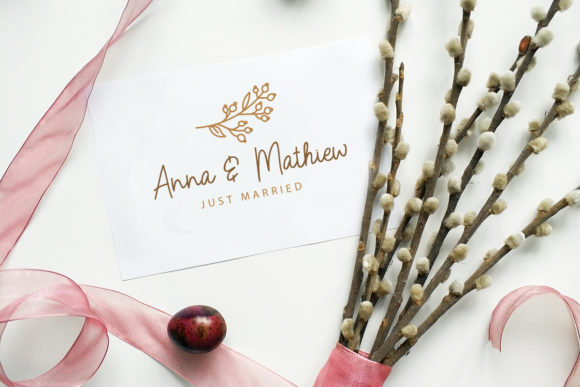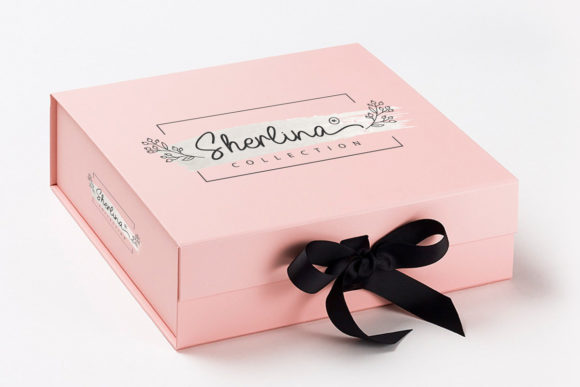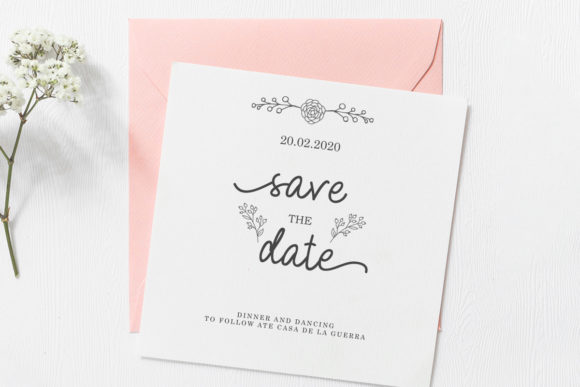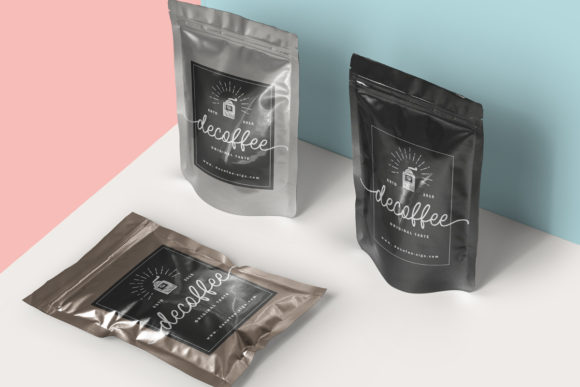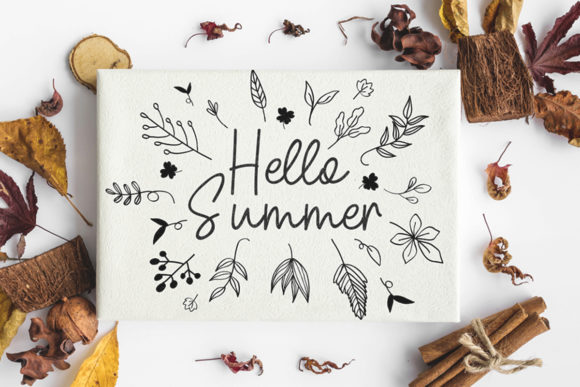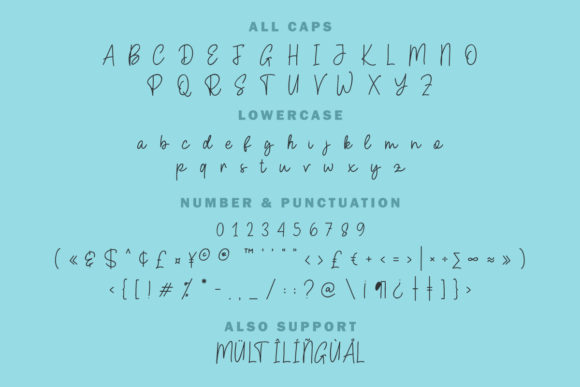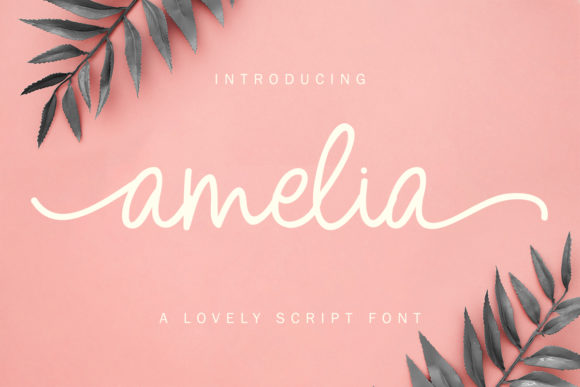
The Sweet Spot: Discovering Amelia Script Font
I still remember the time I was working on a custom wedding invitation project, and my client asked for a font that was both elegant and playful. I scoured the internet, tried out countless fonts, but nothing seemed to fit the bill. That was until I stumbled upon Amelia Script Font. It was love at first sight! 💕 The perfect blend of sweetness and authenticity, Amelia Script has been a game-changer for my design projects ever since.
What I Love About Amelia Script Font
- ✨ Elegant yet approachable: Amelia Script strikes the perfect balance between sophistication and playfulness.
- ✅ Highly versatile: This font is perfect for a wide range of projects, from wedding invitations to branding and packaging.
- 💫 Beautifully crafted: The attention to detail in Amelia Script is impressive, with gorgeous letterforms and subtle nuances.
While Amelia Script is an amazing font, there are a few things to keep in mind:
- ⚠️ Limited character set: As with any script font, some characters may not be available or may require additional setup.
- 🤔 May not be suitable for very small text sizes: Amelia Script is best used at larger text sizes to showcase its beauty.
The Story Behind Amelia Script Font
Amelia Script Font was designed with the intention of creating a beautiful, authentic script that captures the essence of handwritten lettering. The designer aimed to create a font that was both elegant and approachable, perfect for a wide range of design projects. While the exact story behind the font’s creation may be unknown, it’s clear that Amelia Script has been crafted with love and attention to detail.
| Font Name | Amelia Script Font |
| Author | Yumna_Type |
Q: What is the best use for Amelia Script Font?
A: Amelia Script Font is perfect for a wide range of design projects, including wedding invitations, branding and packaging, and custom gifts.
Q: Is Amelia Script Font suitable for body text?
A: While Amelia Script Font is beautiful, it’s best used at larger text sizes to showcase its elegance. For body text, a clearer font may be more suitable.